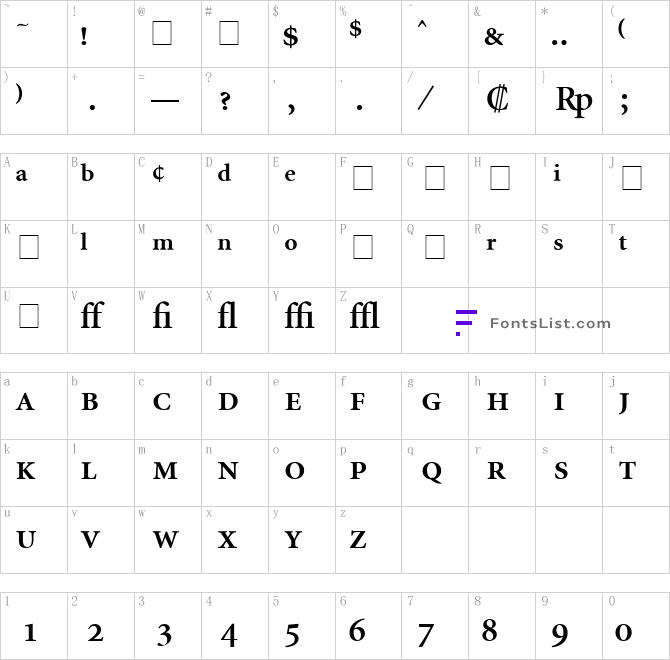
- Font Name:Atlantix Pro SSi
Atlantix-Pro-SSi-Semi-Bold.ttf is a very beautiful artistic font, Atlantix-Pro-SSi-Semi-Bold.ttf is widely used in the design and printing of various books and pictures,Atlantix-Pro-SSi-Semi-Bold.ttf has a strong visual impact,Atlantix-Pro-SSi-Semi-Bold.ttf is a commonly used font in newspapers, magazines and books, and is used in posters, e-commerce Poster design, store design, logo design, font design and other fields.Atlantix-Pro-SSi-Semi-Bold.